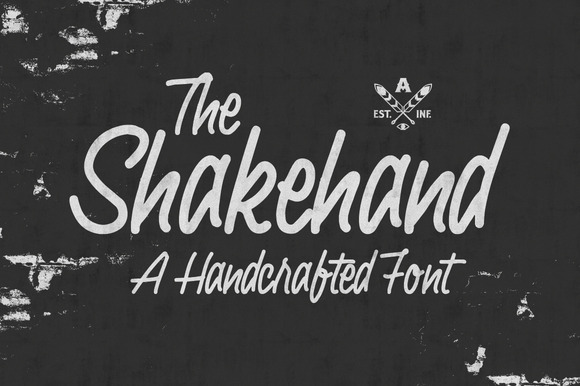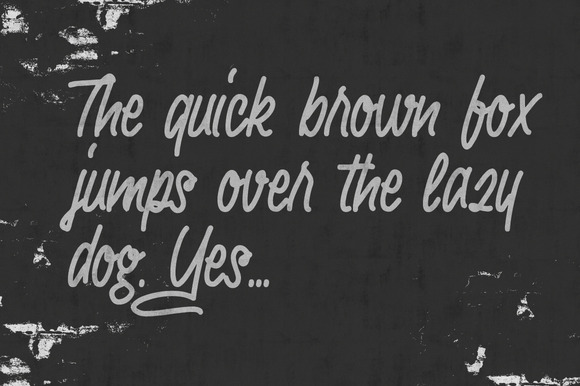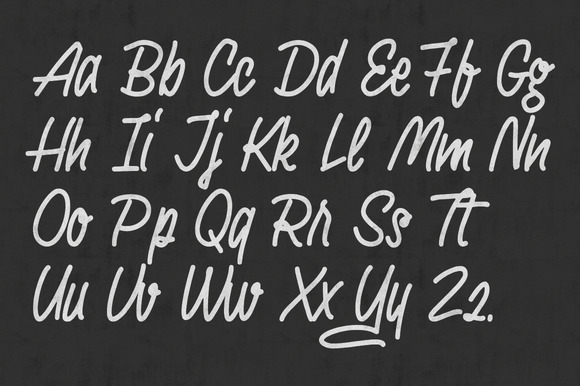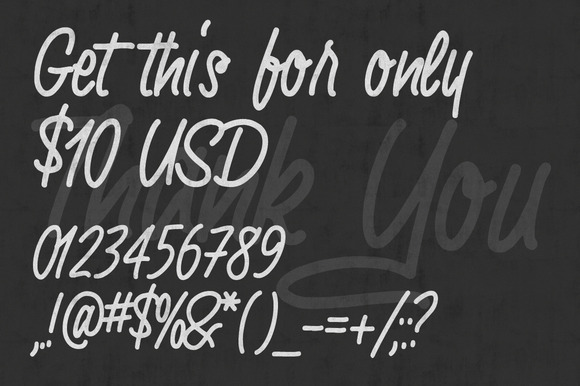
Shakehand Typeface
Shakehand typeface is a handdrawn, hand lettered script font. in zip file you’ll get the otf font and some previews of font in use.